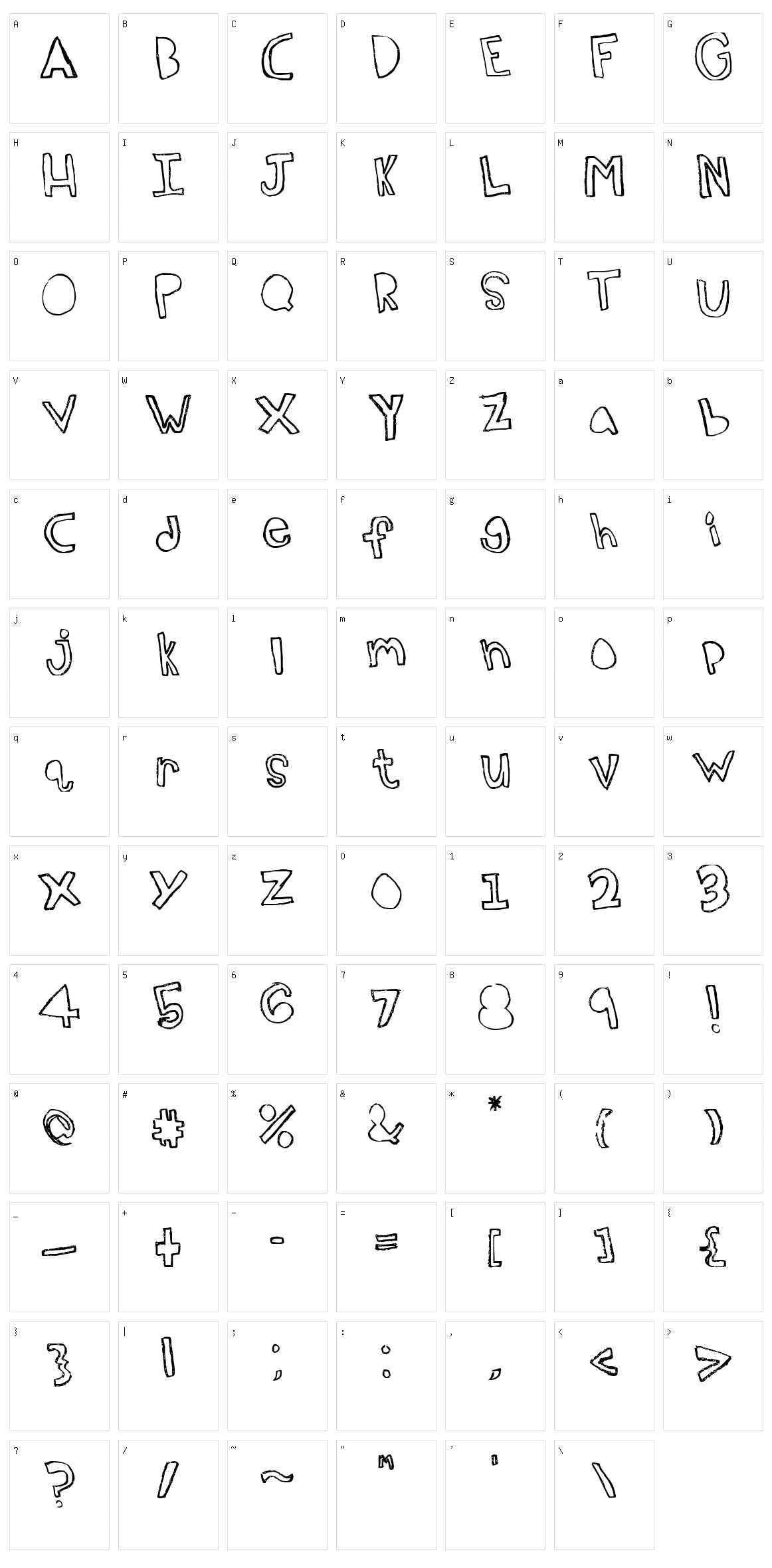
The free font Topsy Turvy is carefully designed by TaylorTheSkater, showcasing a thoughtful balance of creativity and usability and falls under the Cartoon font style. When you download the ZIP file, it contains only 427.76 KB of font files, making it lightweight and quick to download. Please review the license details below to understand permitted usage and distribution rights. If license information is not available, we recommend using this font for personal projects only or contacting the author directly for commercial usage permissions.
Topsy Turvy Font was made by Claude Pelletier and Kelland Pionke.